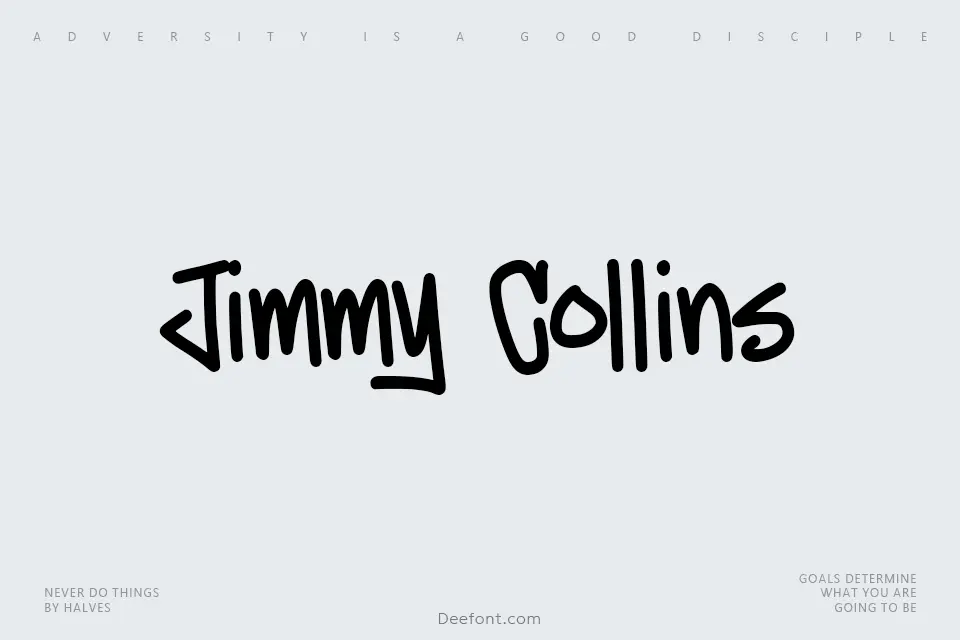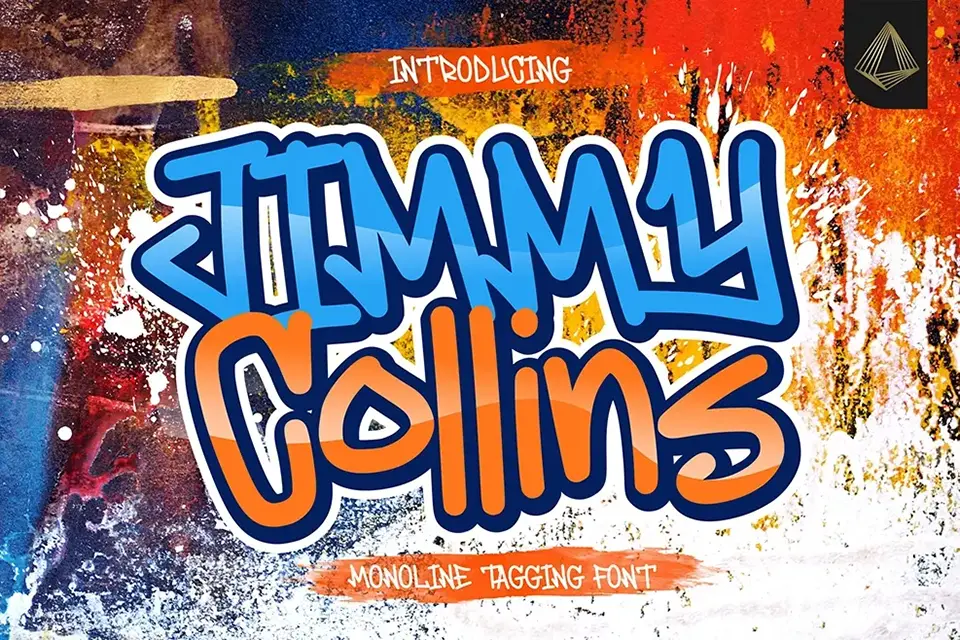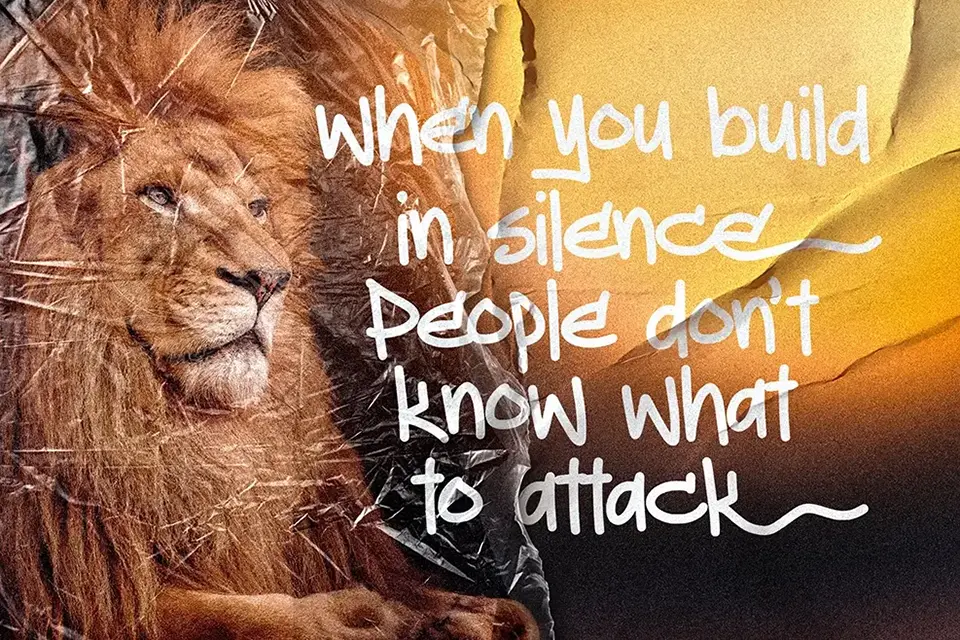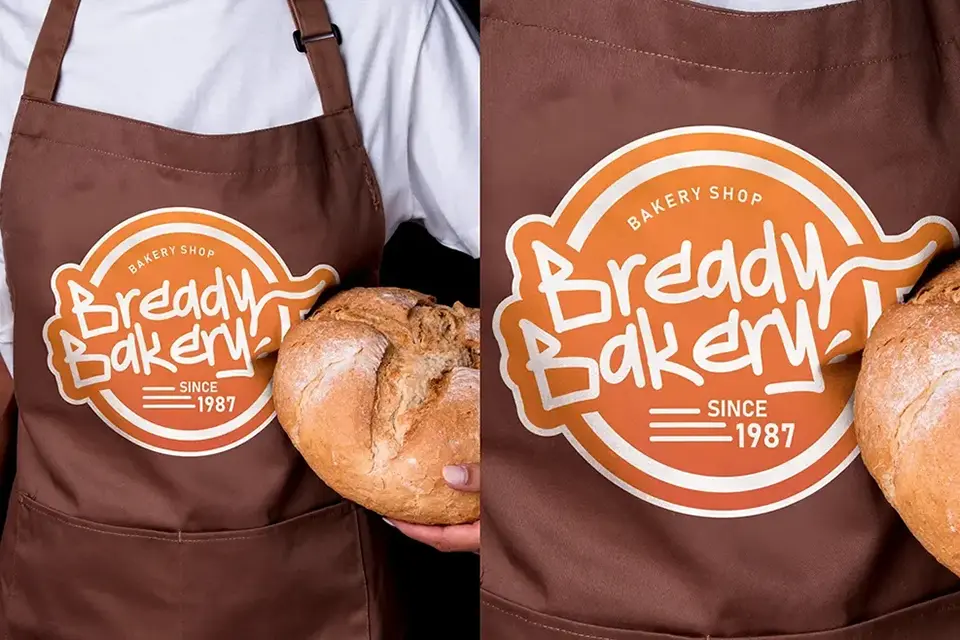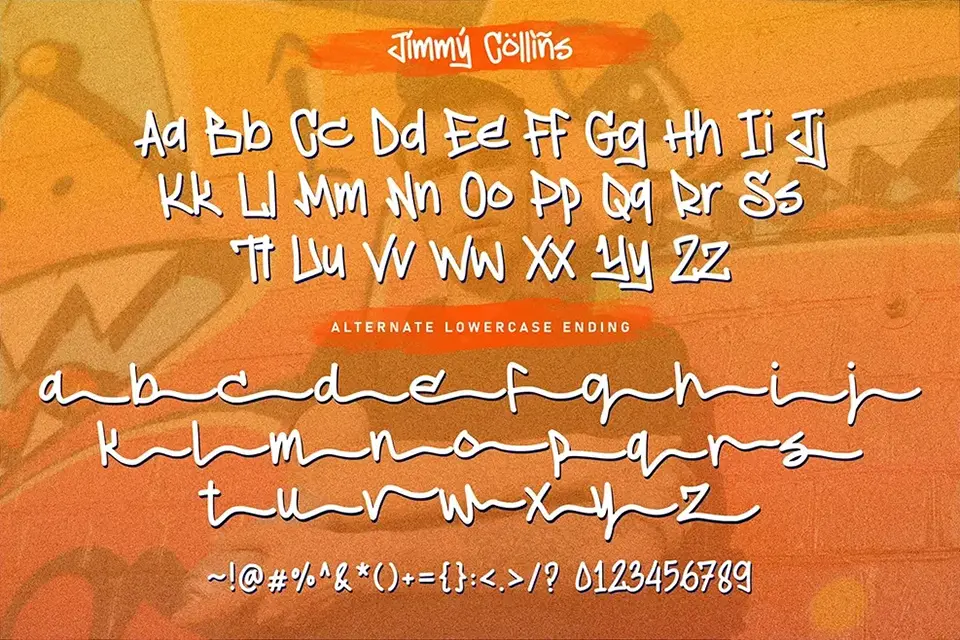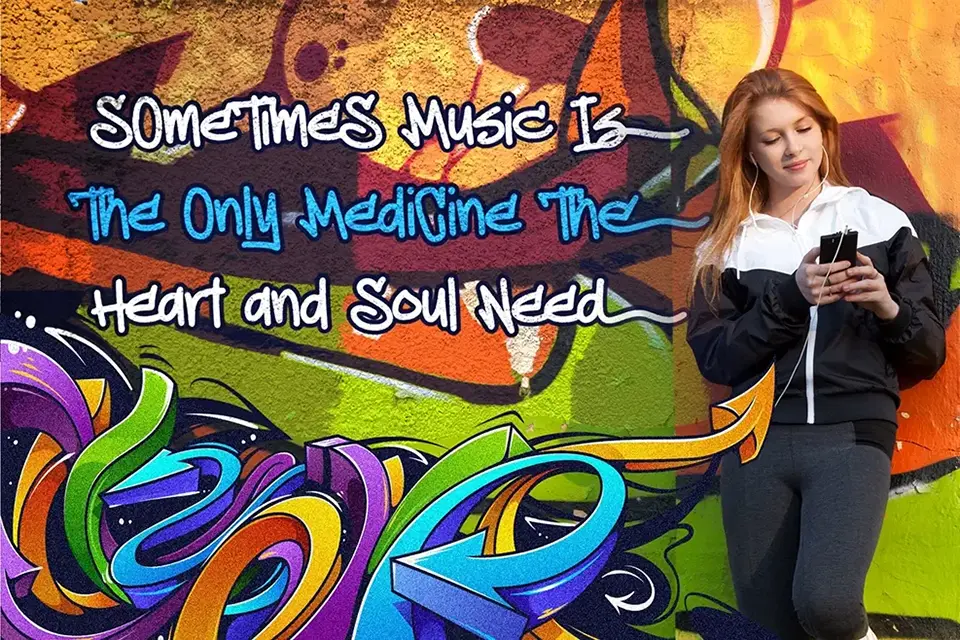
Jimmy Collins Font
Jimmy Collins is a dynamic monoline graffiti script typeface designed with artistic flair and contemporary style. Perfect for creating eye-catching logos, poster designs, and social media graphics, this font combines modern aesthetics with playful character, featuring 114 glyphs with skewed letterforms that convey an energetic, street-art aesthetic ideal for creative professionals.